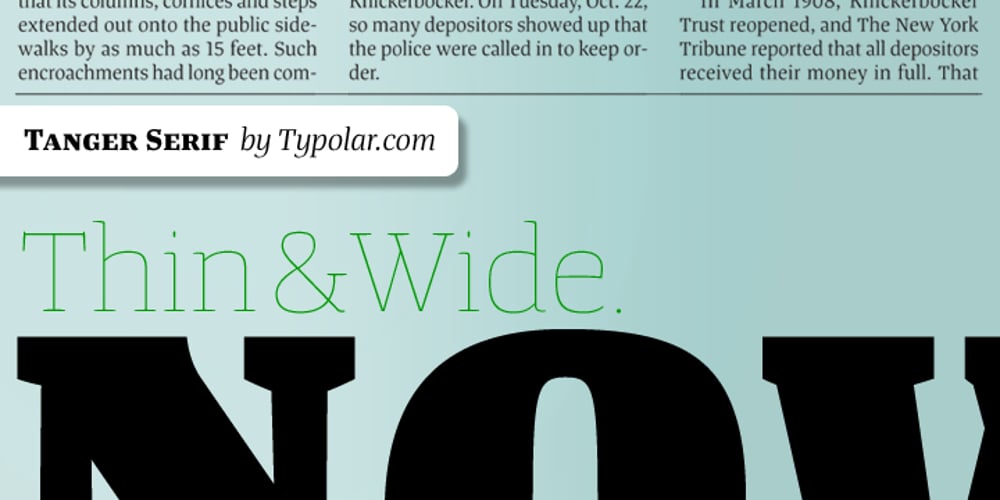
Tanger Serif
Tanger Serif font
Tanger Serif Font Family was designed by Jarno Lukkarila and published by Typolar. Tanger Serif contains 48 styles and family package options. Inspired by New Transitional and Egyptian fonts, Tanger Serif has elements of a sturdy work-horse text face and finely detailed headline font. A wide variety of widths and weights support many text sizes. Typically Narrow is used in headlines, Medium in body and Wide in smaller print. Nothing is predefined, though. By combining the right widths with the right weights this traditional approach can easily be challenged. Let’s take an oversized (over 10 pt) body copy for instance. In conjunction with using a bigger size to enhance readability, a narrow and slightly lighter weight will save space and brighten text color. Tanger Serif Narrow is a slim normal rather than a condensed face. As an Open Type “Pro” font each weight includes an expanded character set, small caps, old style figures, tabular figures, ligatures, fractions etc. All these are easily accessible through OpenType features.